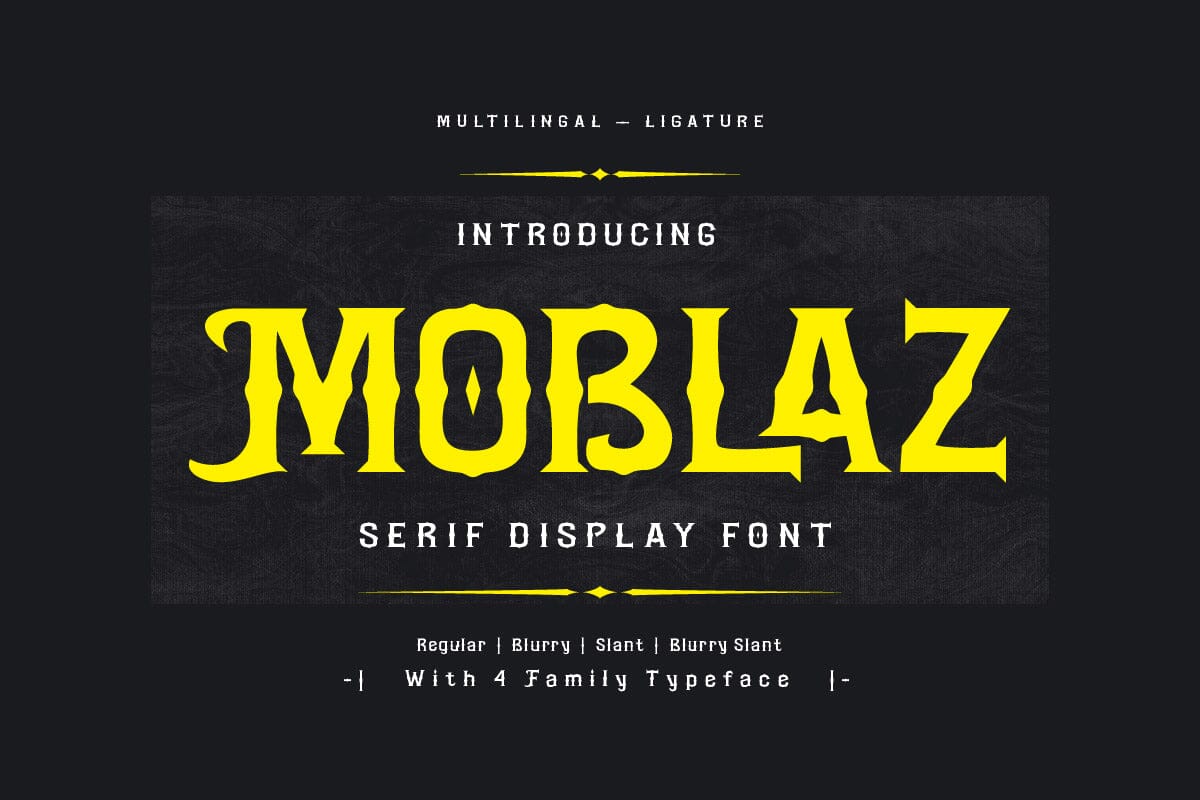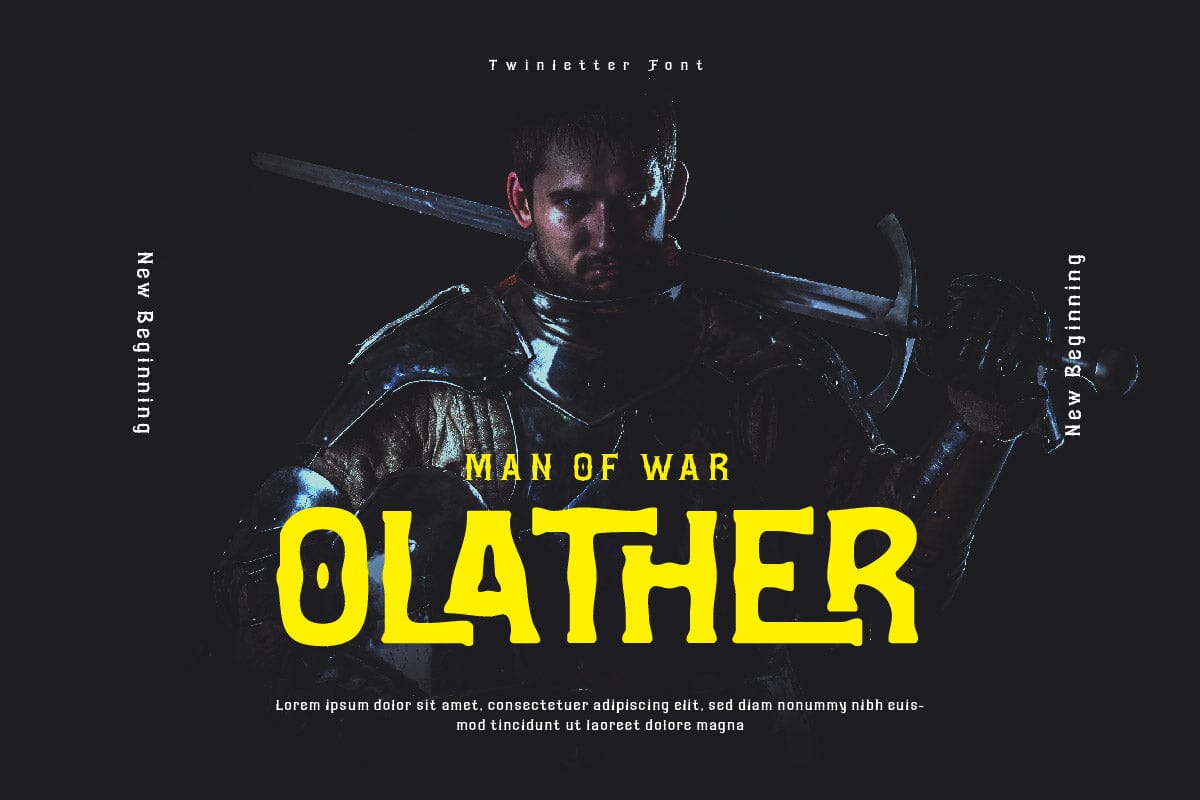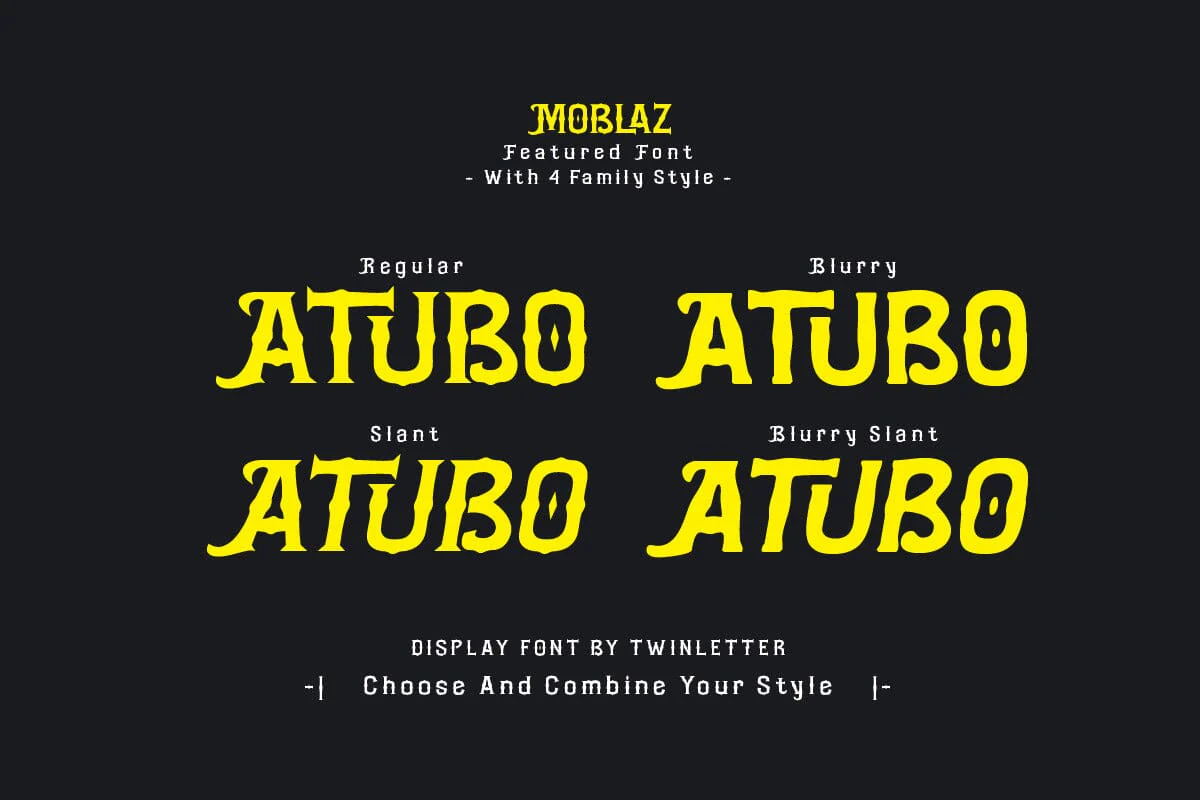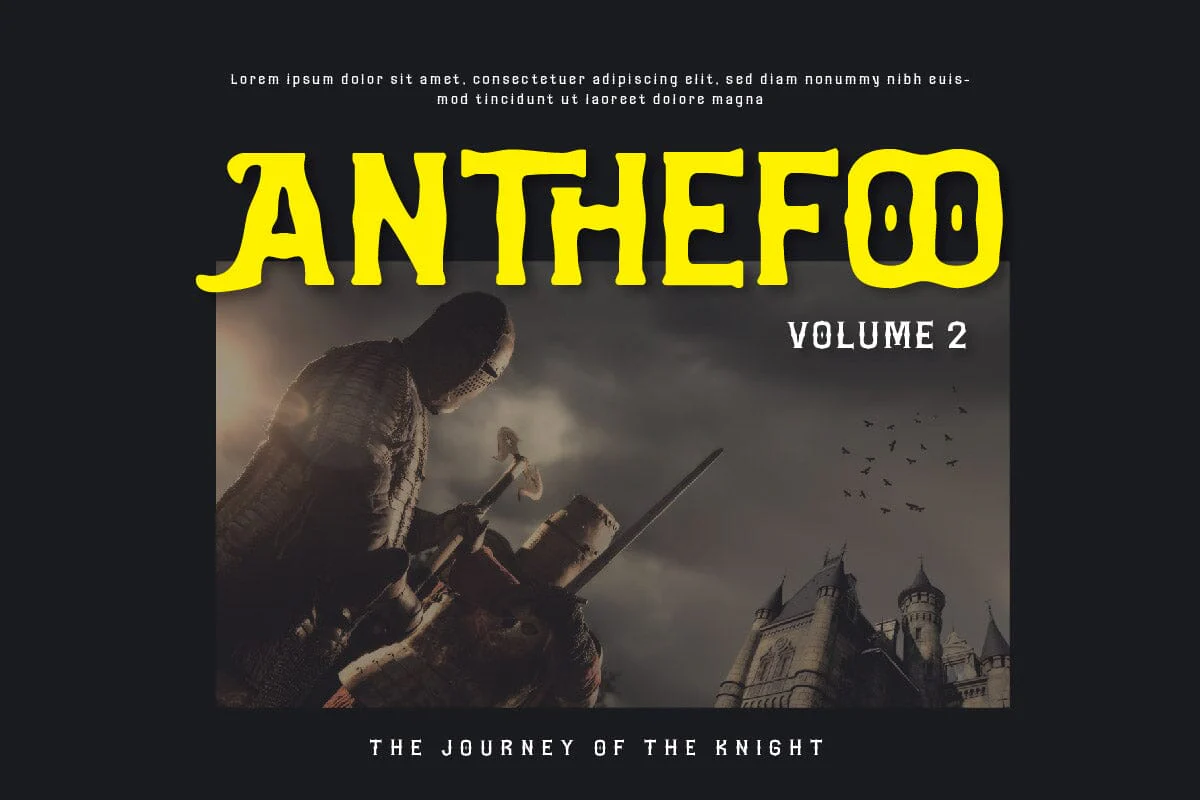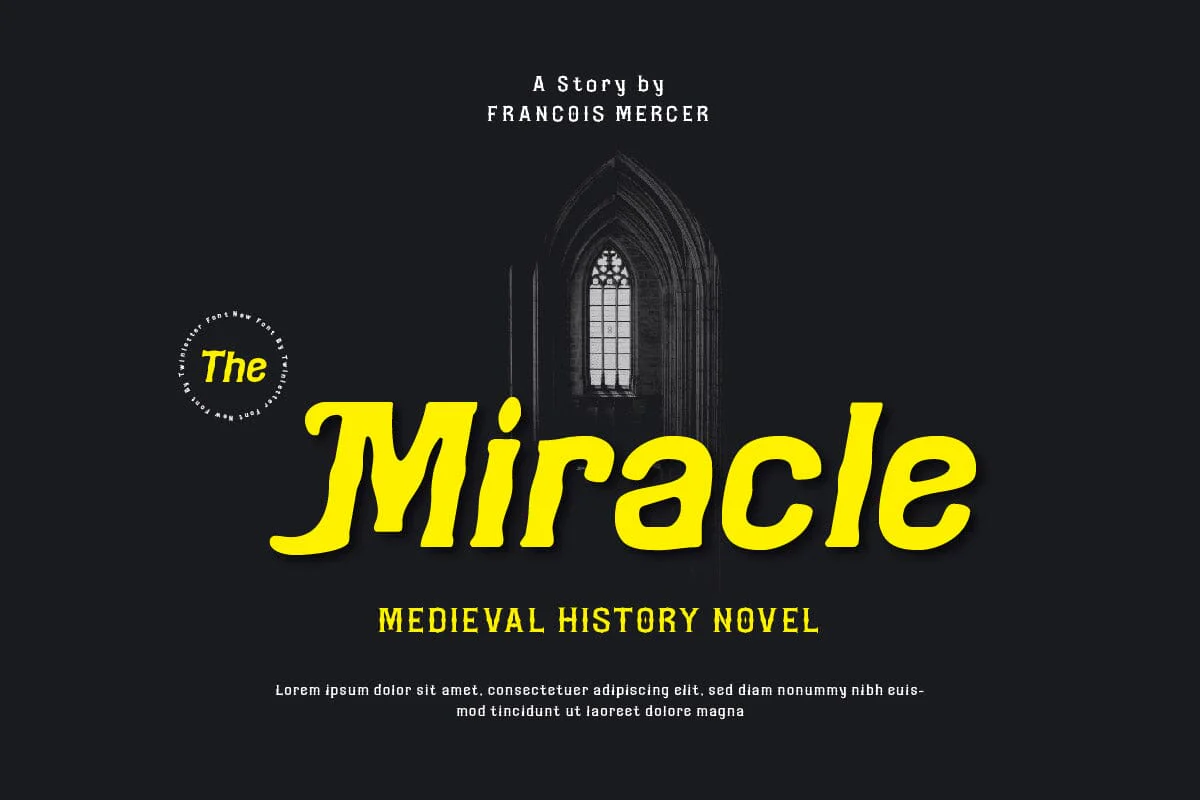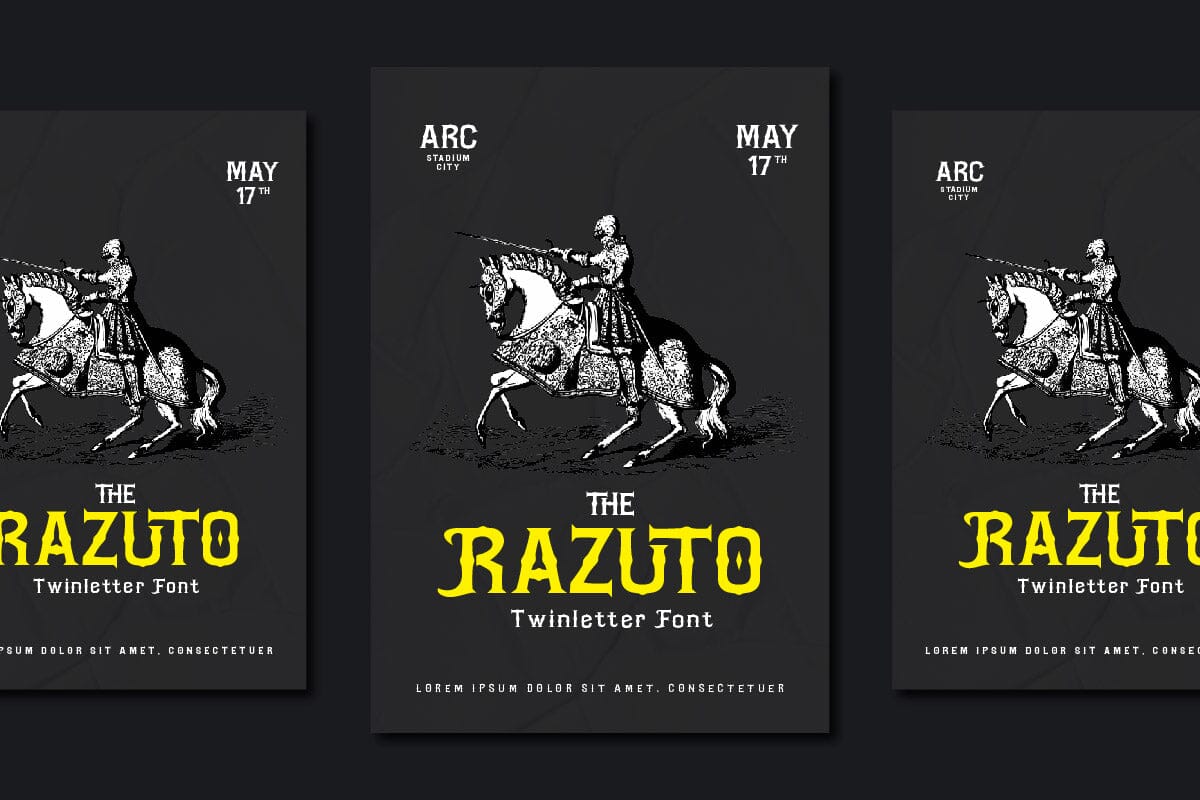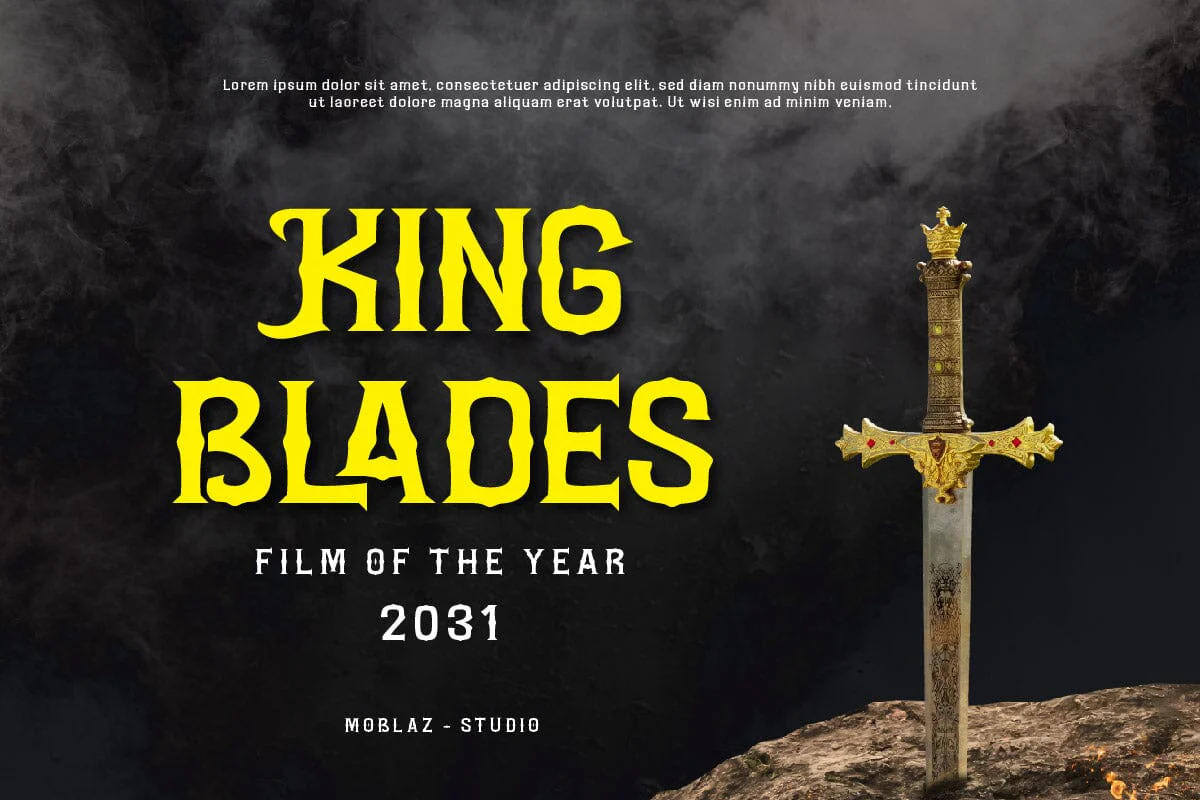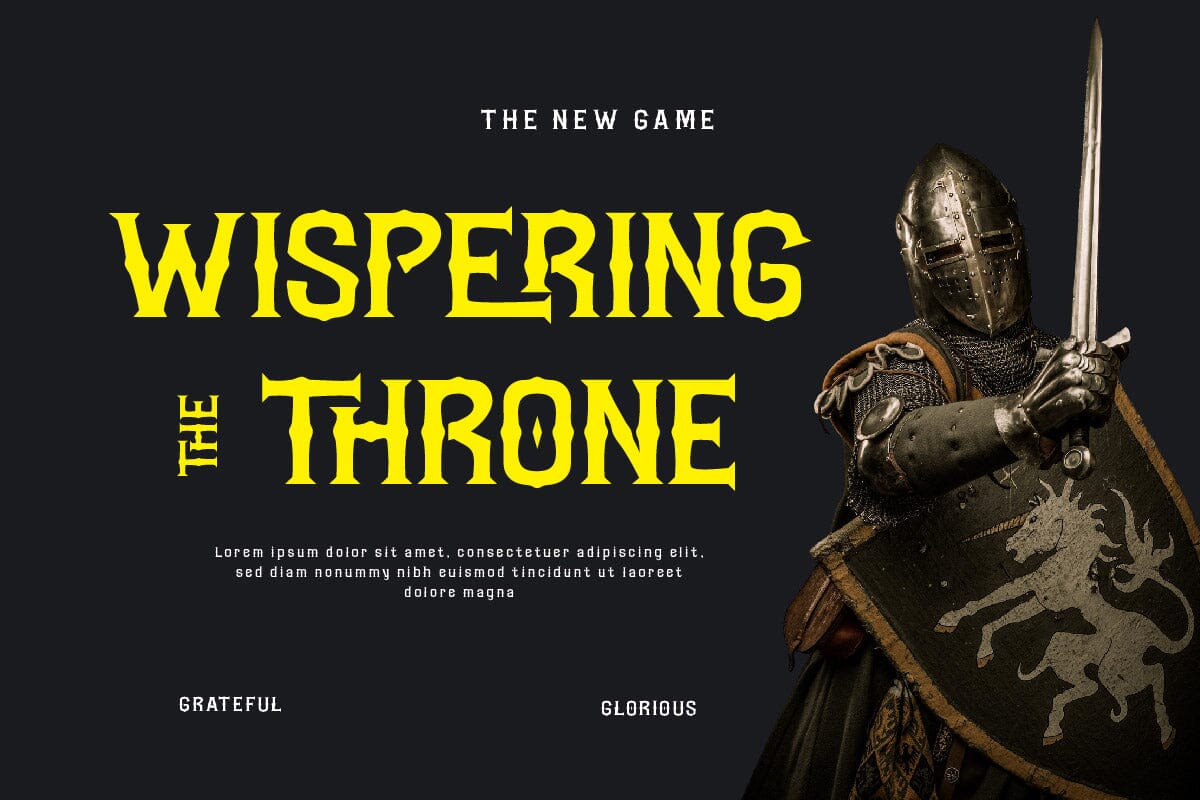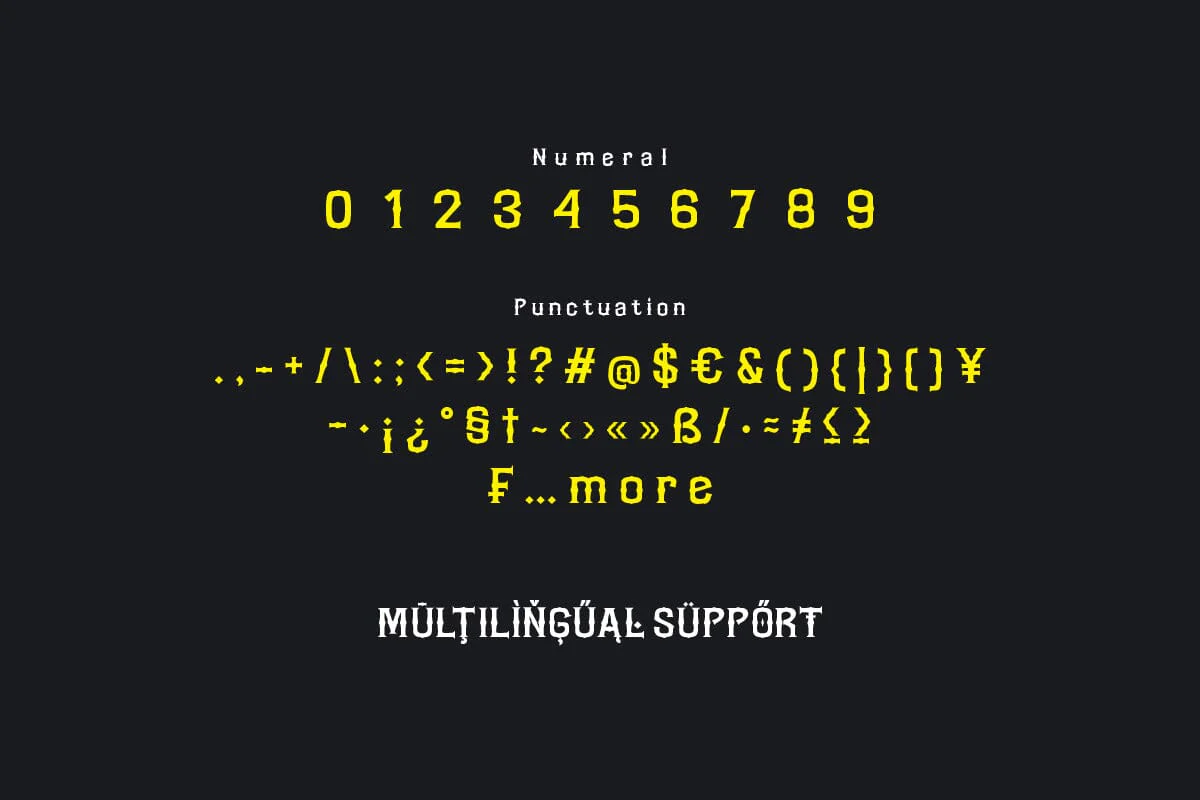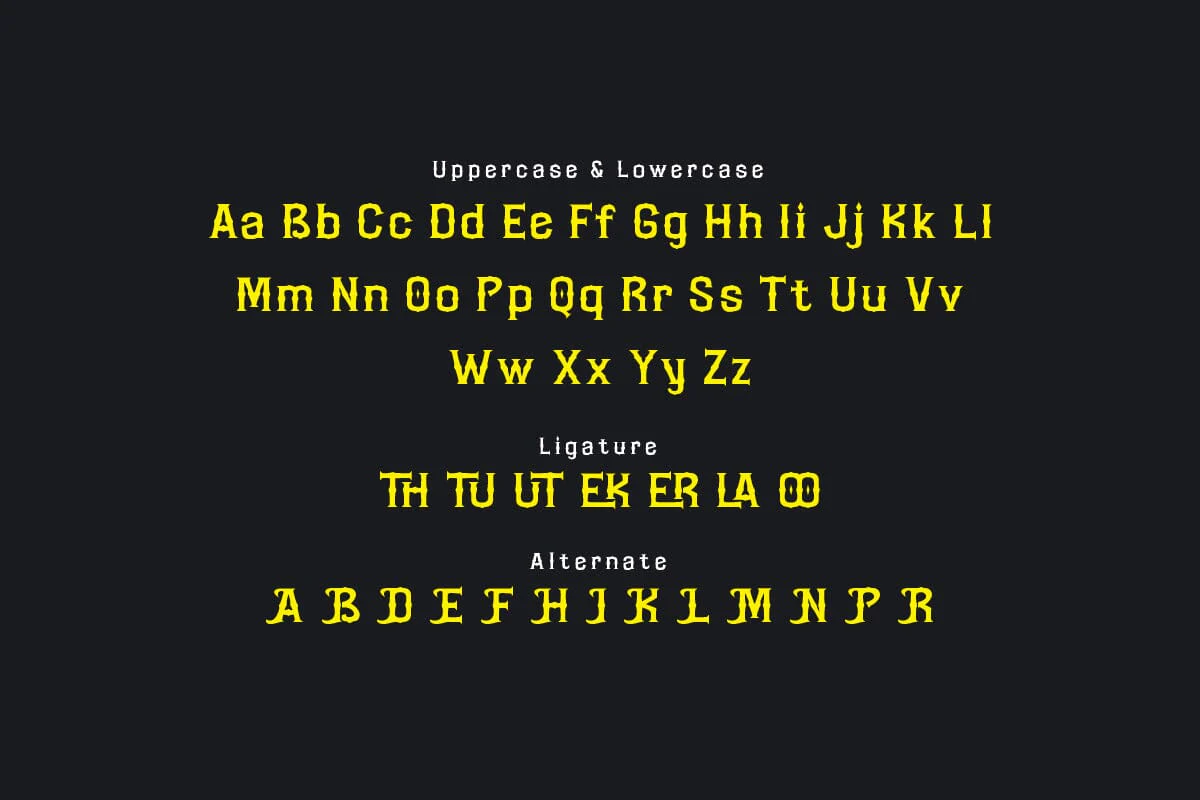
Moblaz - Serif Display Font
Moblaz is a serif display font that combines classic style with modern design. Its elegant serifs and balanced characters make it a versatile choice for a wide range of designs. But Moblaz is more than just a font, it’s a way to convey a sense of elegance and sophistication. With Moblaz, your designs will always look their best. It’s perfect for those designs where you need to convey a sense of elegance and sophistication, such as luxury brand logos or high-end invitations. When you use Moblaz, you’re not just choosing a font, you’re choosing a lifestyle.